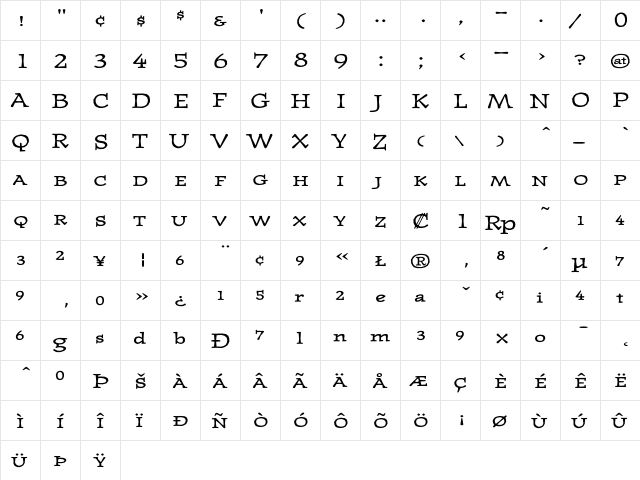
JournalUltraSmallcaps Regular Font Preview
JournalUltraSmallcaps Regular
JournalUltraSmallcaps Regular Font Details
Design Context for JournalUltraSmallcaps Typeface
JournalUltraSmallcaps takes a measured approach to typography — its balanced proportions and neutral character make it a reliable workhorse for both digital and print work.
Pro Tip: Use JournalUltraSmallcaps in both headline and body roles to test its range before committing to a single application.